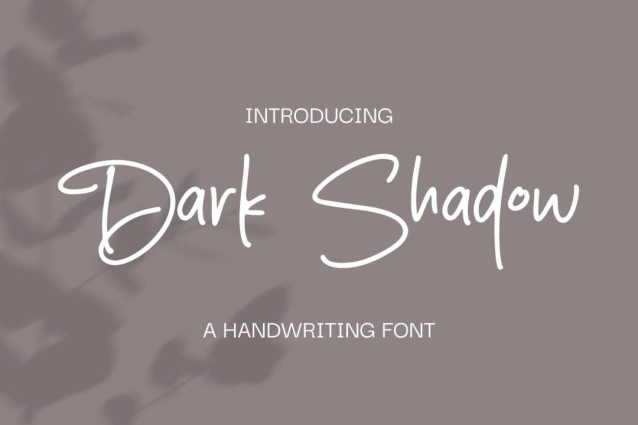
Dark Shadow Font
Dark Shadow Font is a simple and friendly handwritten font. Its natural and unique style makes it incredibly fitting to a large pool of designs. The only limit is your imagination!